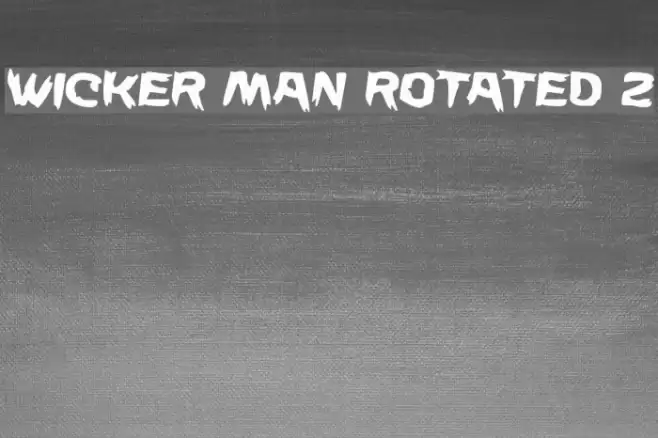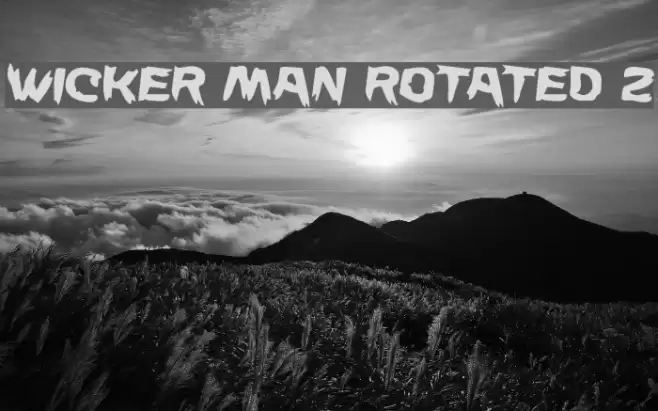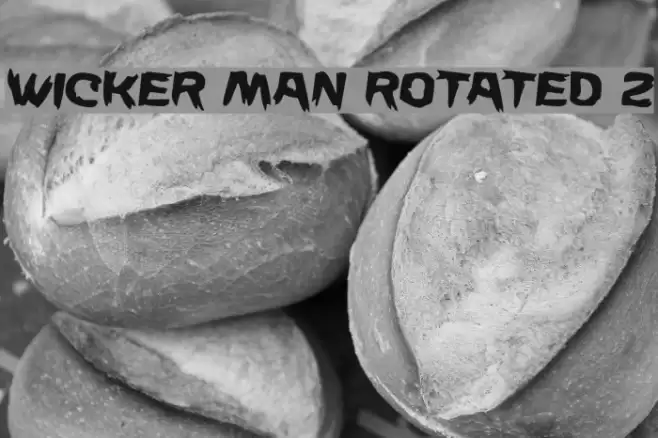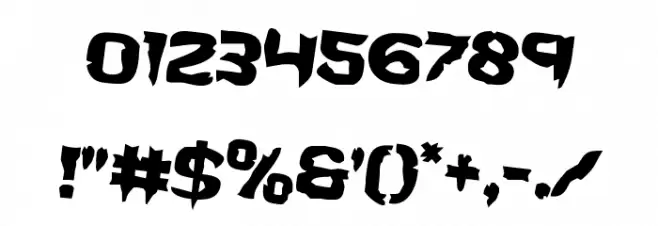
Wicker Man Rotated 2 Font
Wicker Man Rotated 2 Description
This font features a bold and jagged design, reminiscent of sharp, angular cuts and dynamic movement. The characters have a distressed, edgy appearance, with irregular edges that give them a rugged and intense look. The uppercase and lowercase letters maintain a consistent style, with each character exhibiting unique, sharp angles and a slightly chaotic form. The numbers and special characters follow the same design principles, ensuring a cohesive and striking visual impact across all elements. This font is ideal for projects that require a bold statement and a touch of rebellious flair.
A bold, jagged font with sharp, angular cuts and a distressed appearance from Uncategorized fonts.
- Proposed Projects: Perfect for horror-themed posters, edgy branding, album covers, and rebellious fashion designs.